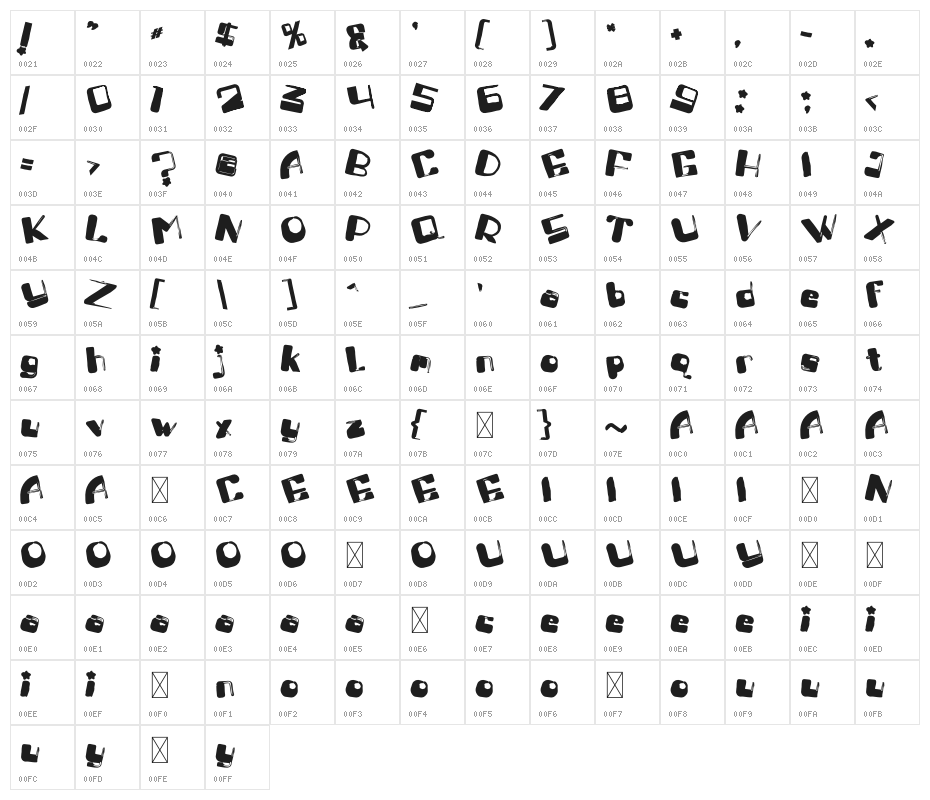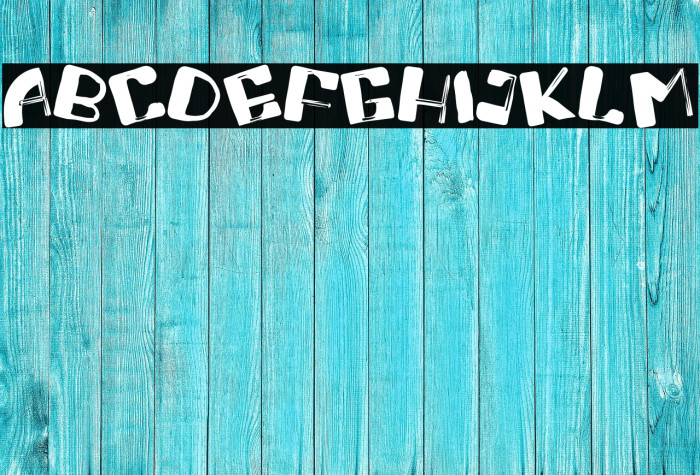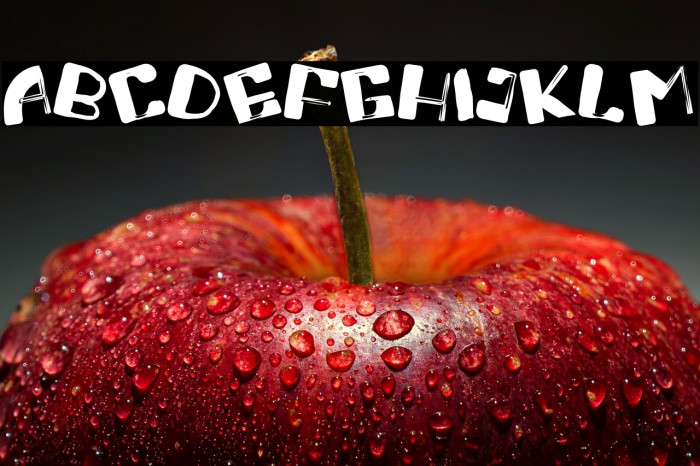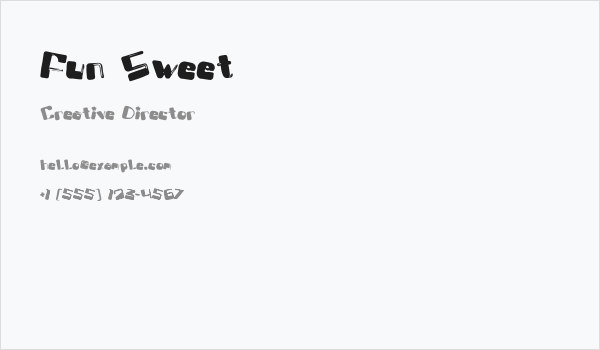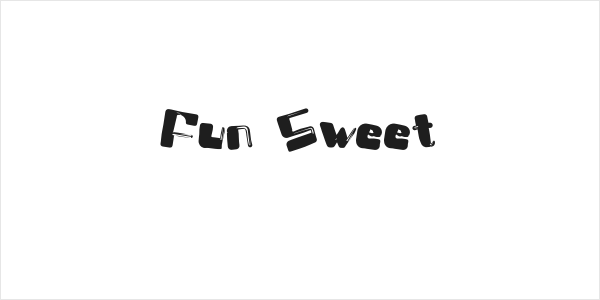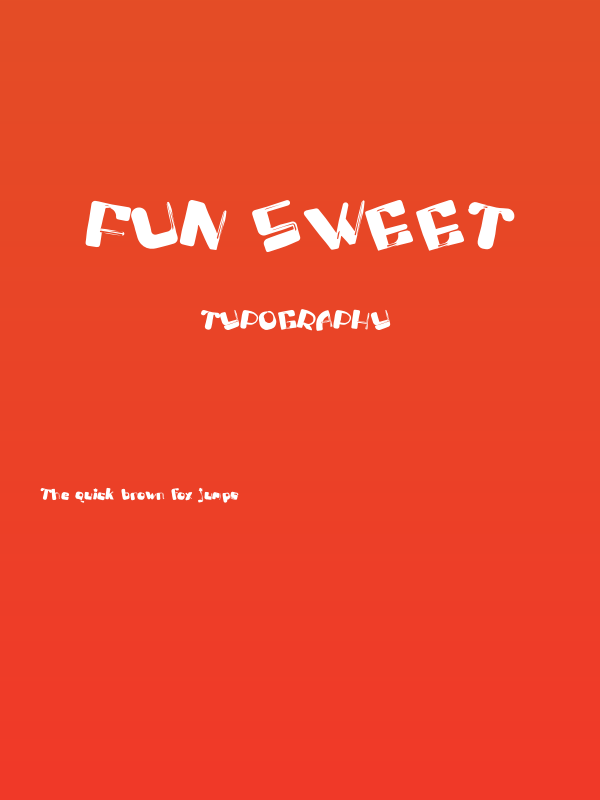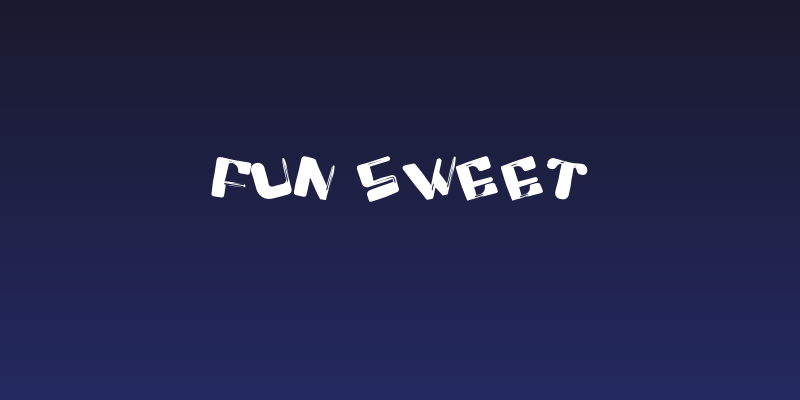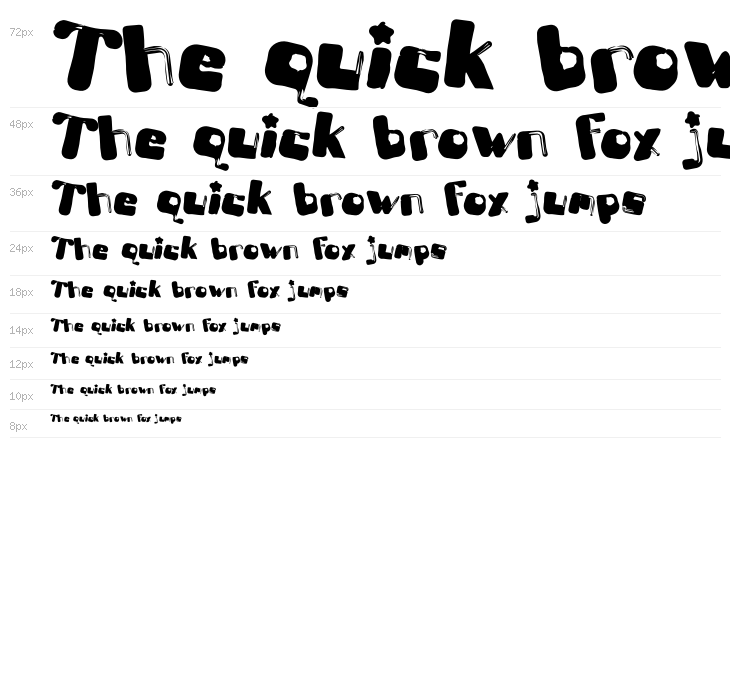
Fun Sweet Font
Fun Sweet Description
This playful and whimsical font features a bold and chunky design with irregular, hand-drawn elements that give it a fun and energetic feel. The letters are uniquely styled with varying thicknesses and quirky details, making each character stand out. The uppercase and lowercase letters maintain a consistent playful theme, while the numbers and special characters are equally distinctive. This font's lively and informal style makes it perfect for projects that require a touch of creativity and humor.